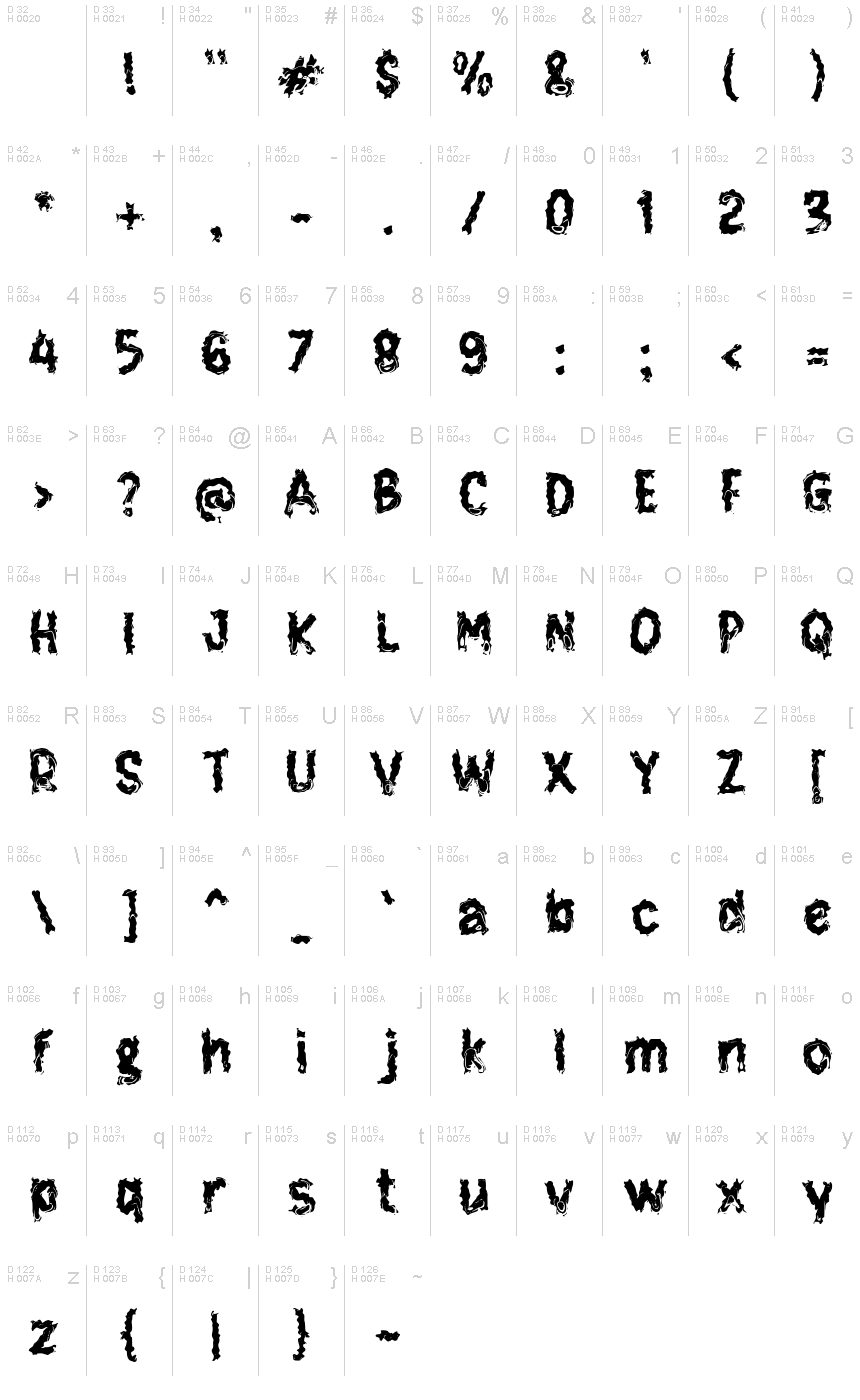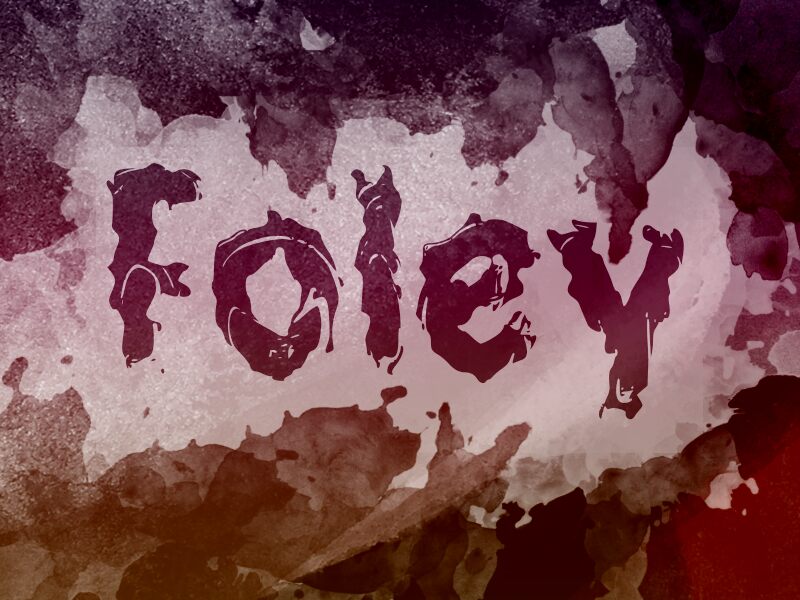
Foley
Foley is a striking display font that exudes an alluring, weathered elegance. Designed by wep, this captivating typeface boasts an eroded aesthetic, lending it a rugged, distressed charm. The letterforms seem to have been carved and chiseled, creating a sense of depth and texture that immediately draws the eye.
With its bold, expressive presence, Foley is well-suited for attention-grabbing headlines, impactful branding, and edgy editorial designs. The font's distinctive visual character would lend itself beautifully to album covers, concert posters, and other creative applications where a bold, memorable typographic statement is desired. Foley's unique personality and versatility make it a compelling choice for designers seeking to elevate their work with a touch of industrial-inspired flair.